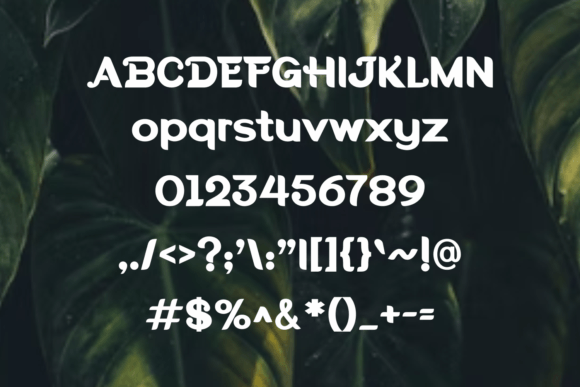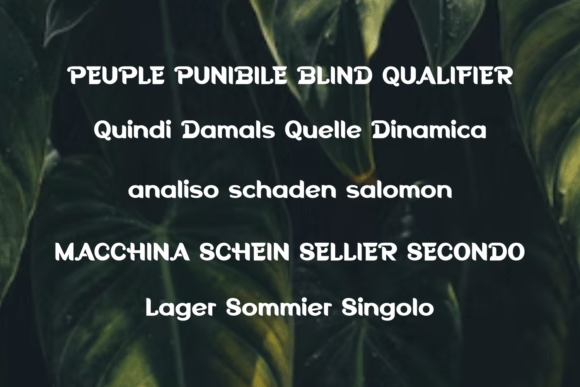
Introducing Gerliah Font: Elevate Your Designs with a Cool and Unique Display Font
Are you tired of using the same old fonts in your designs? Look no further! Gerliah Font is here to revolutionize your typography with its cool and unique display font style. This font is meticulously crafted with attention to detail, making it a valuable addition to any designer’s font library.
What Makes Gerliah Font Stand Out?
Gerliah Font is a highly detailed display font that can elevate any creation, regardless of the topic or theme. Its unique style and neat craftsmanship make it an excellent choice for designers and crafters looking to add a touch of personality to their work. Whether you’re designing a logo, creating a poster, or crafting a social media graphic, Gerliah Font is sure to make your design stand out.
Key Features of Gerliah Font
- Unique and Cool Design: Gerliah Font boasts a one-of-a-kind design that’s sure to grab attention.
- Highly Detailed: Every letter and character is meticulously crafted to ensure a high level of detail.
- Versatile: Gerliah Font can be used for a wide range of design projects, from logos and posters to social media graphics and more.
- Easily Readable: Despite its unique style, Gerliah Font remains easily readable, making it perfect for display text.
Why Choose Gerliah Font?
With so many fonts available, why choose Gerliah Font? Here are just a few reasons:
- Add a Personal Touch: Gerliah Font allows you to add a personal touch to your designs, setting them apart from the crowd.
- Enhance Your Brand: Use Gerliah Font to create a unique visual identity for your brand, making it more memorable and recognizable.
- Experiment with Different Sizes: Gerliah Font looks great in a variety of sizes, from small captions to large display text.
- Play with Colors: Gerliah Font comes in a range of colors, so don’t be afraid to experiment and find the perfect hue for your design.
- Pair it with Other Fonts: Gerliah Font pairs well with a range of other fonts, so try combining it with different styles to create a unique look.
In conclusion, Gerliah Font is a cool and unique display font that’s sure to elevate your designs. With its highly detailed craftsmanship and versatile style, it’s an excellent addition to any designer’s font library. Whether you’re a seasoned pro or just starting out, Gerliah Font is a great choice for anyone looking to add a personal touch to their work.